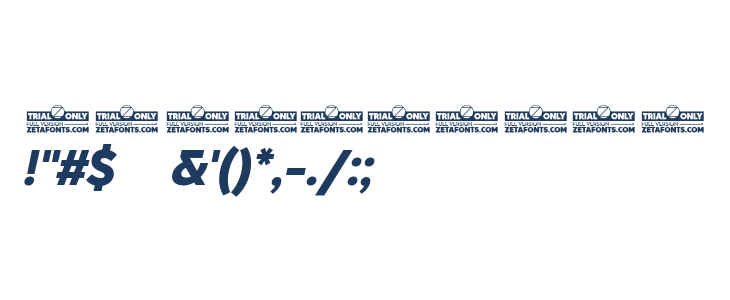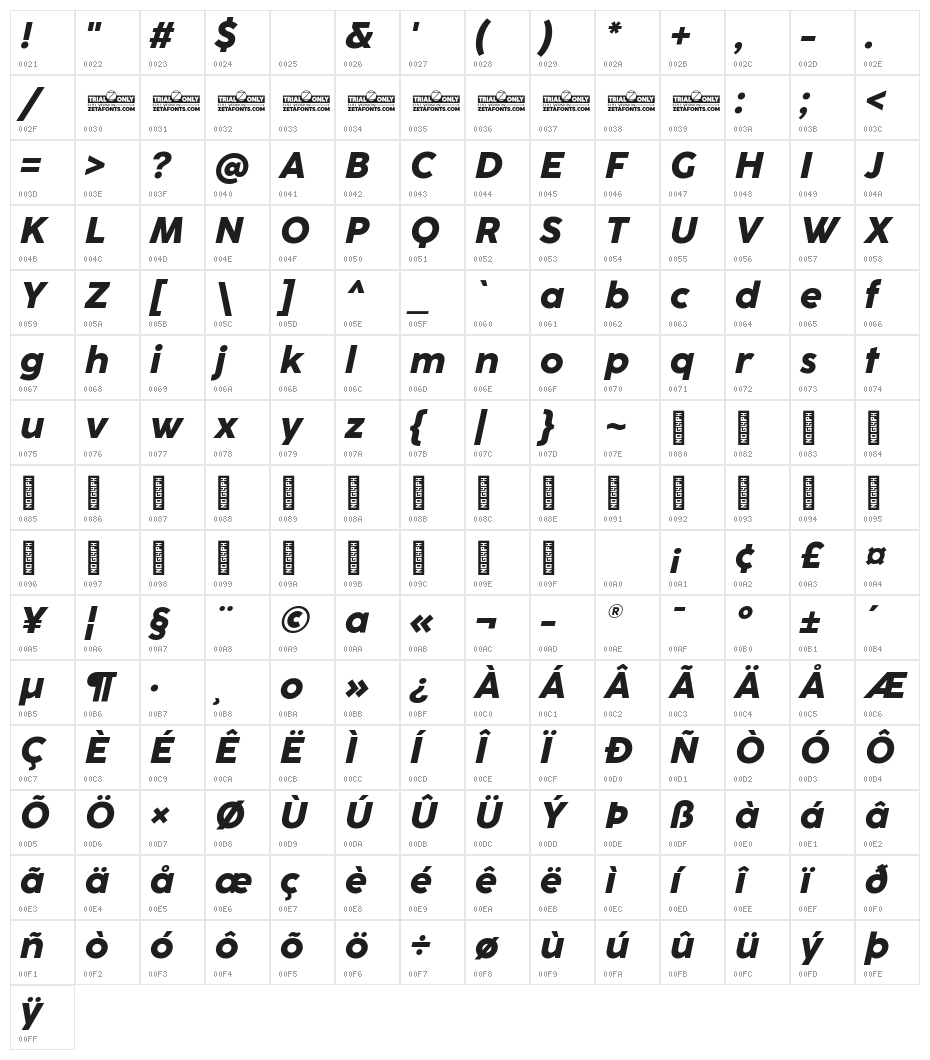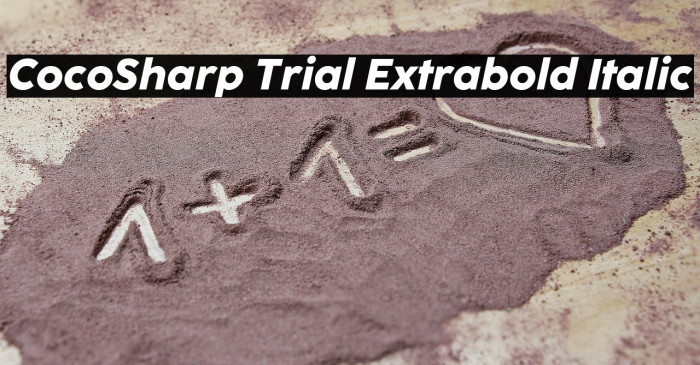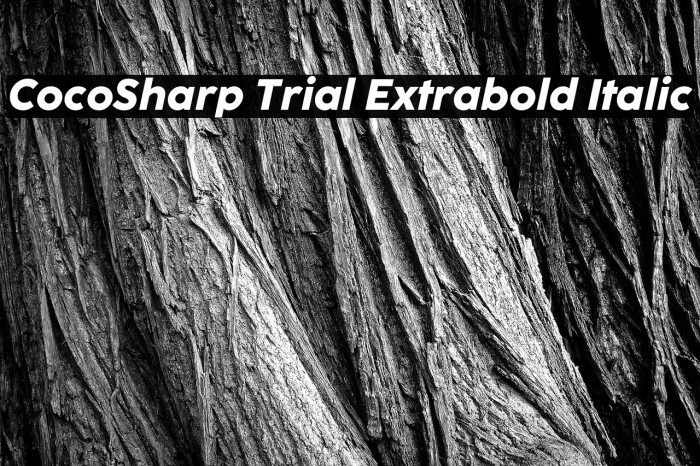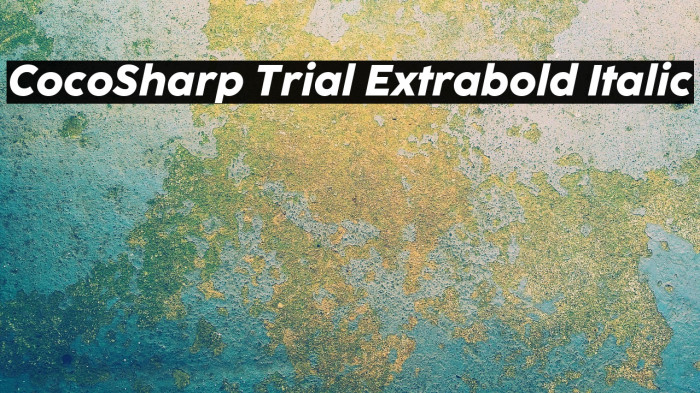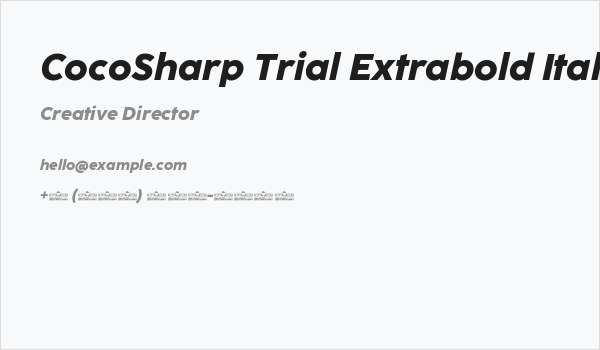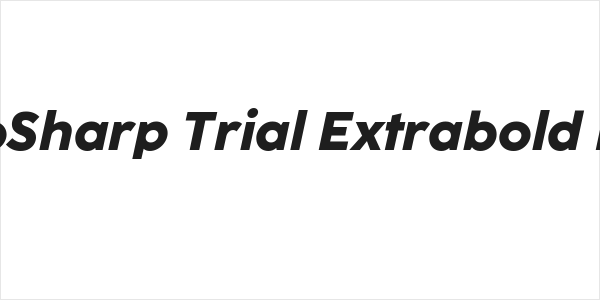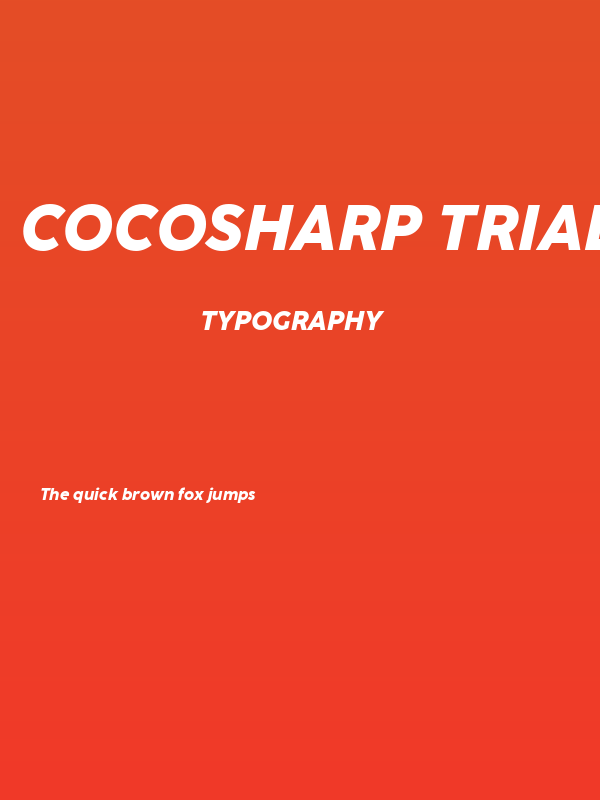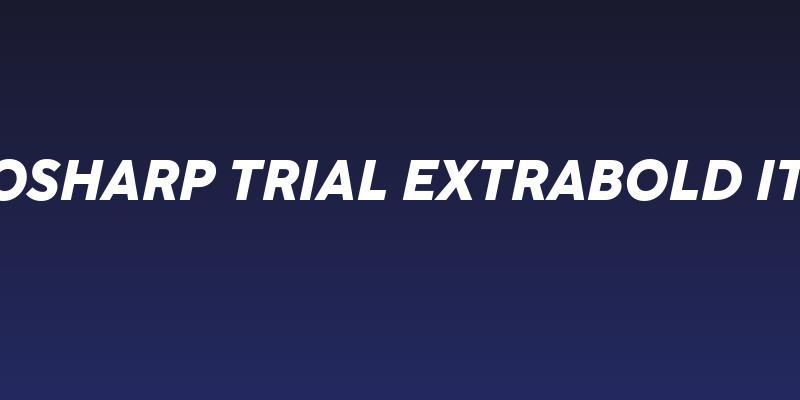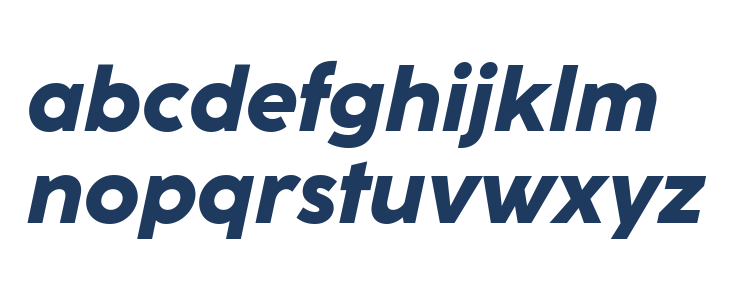
CocoSharp Trial Extrabold Italic Font
CocoSharp Trial Extrabold Italic Description
This font features a bold and dynamic style with a strong italic slant, giving it a sense of movement and energy. The characters are thick and robust, making them highly legible and impactful. The uppercase letters are particularly striking, with a consistent weight and smooth curves that enhance their readability. The lowercase letters maintain the same boldness, ensuring uniformity across text. The numerals and special characters are designed with the same attention to detail, providing a cohesive look throughout. This font's modern and assertive appearance makes it suitable for a variety of design applications.